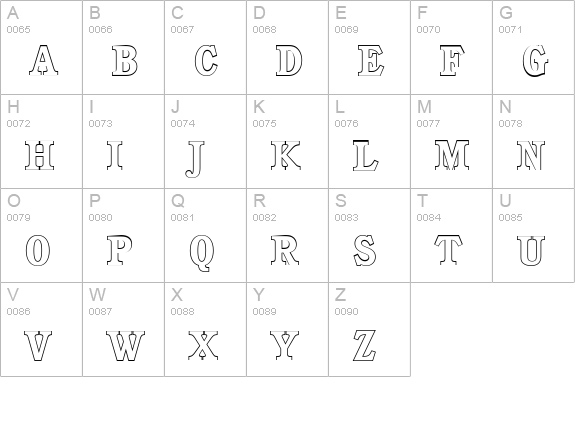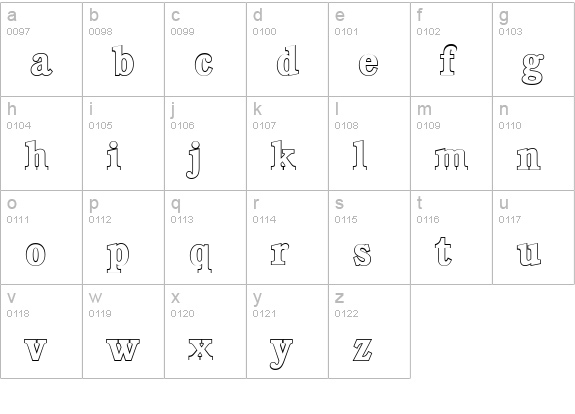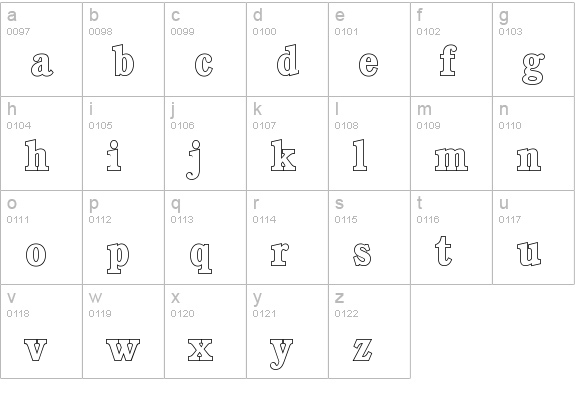
CalgaryOutline-Bold Font Details
CalgaryOutline-Bold is a strong, high-contrast variant in the CalgaryOutline typeface family \xE2\x80\x94 well suited to headlines, attention-grabbing titles, and strong calls-to-action.
CalgaryOutline-Bold font is a modern and bold typeface that exudes confidence and style. With its sleek lines and sharp edges, this font is perfect for creating eye-catching designs that demand attention. Whether you're designing a poster, logo, or website, CalgaryOutline-Bold will make your project stand out with its bold and unique look. Best of all, CalgaryOutline-Bold is available for free download at FontsMarket.com. This means you can add this stylish font to your collection without breaking the bank. Don't miss out on the opportunity to enhance your designs with the striking CalgaryOutline-Bold font - download it today and take your projects to the next level.